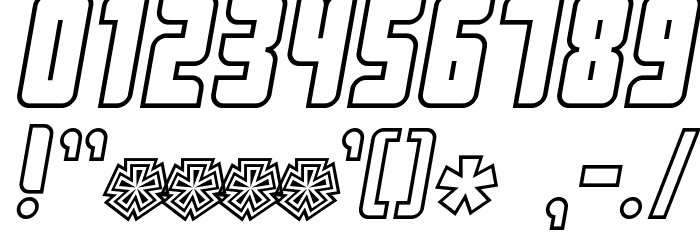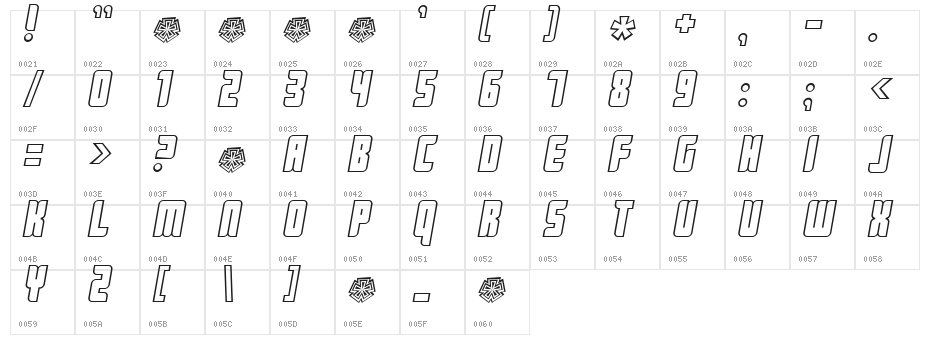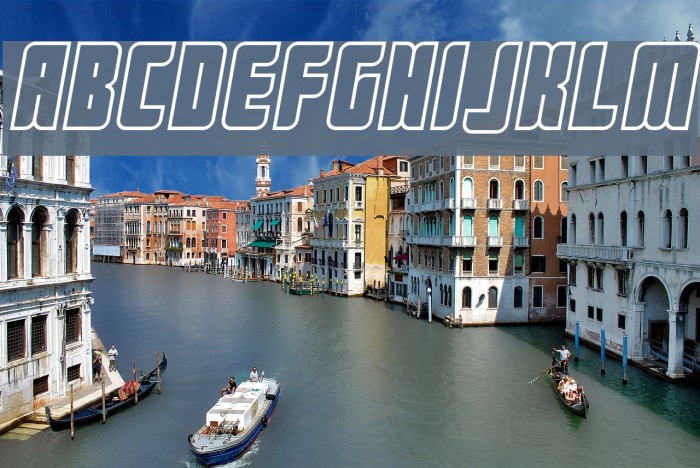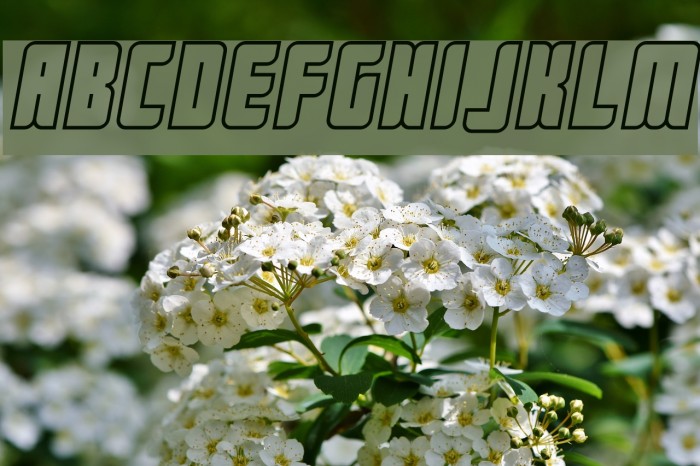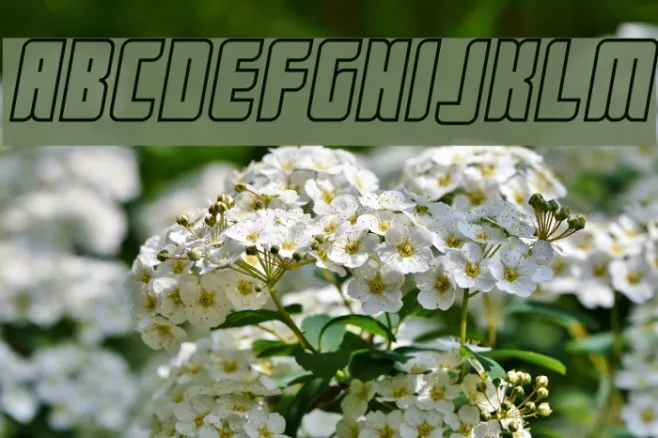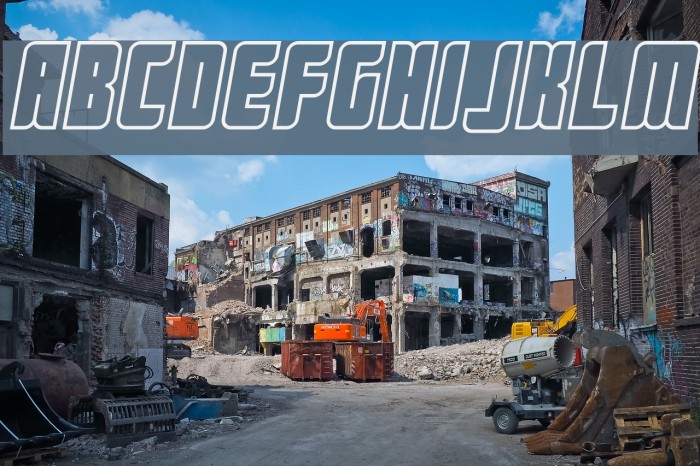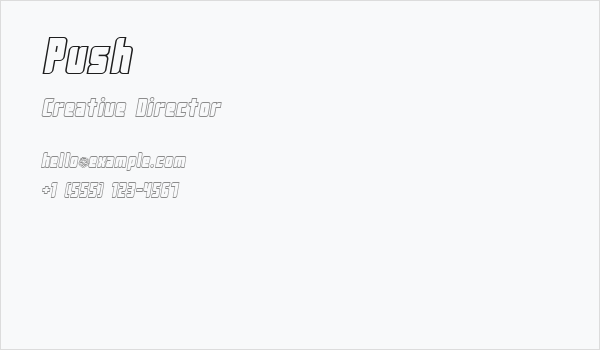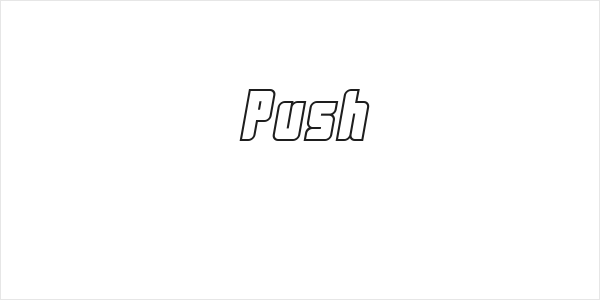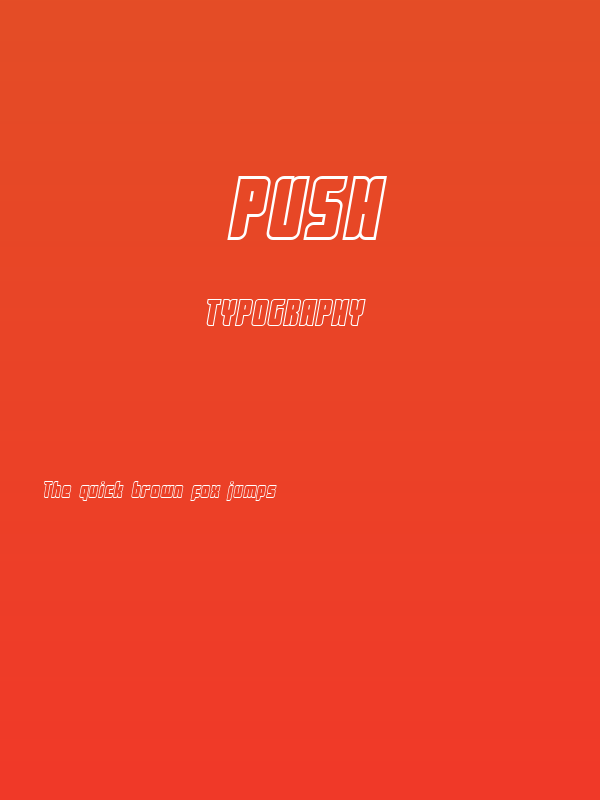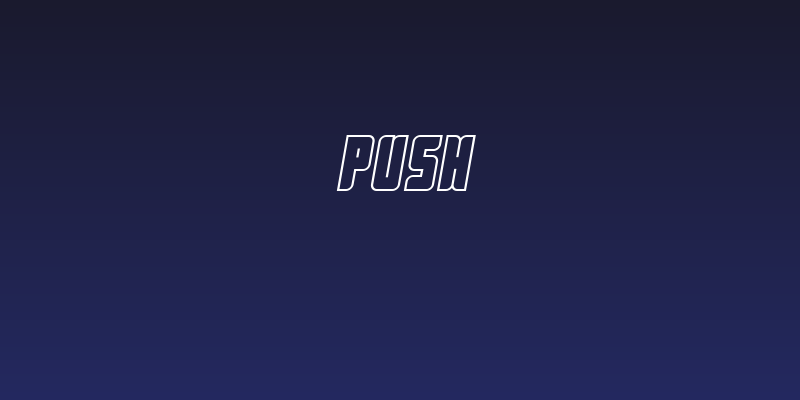
Push Font
Push Description
This font features a bold, outlined style with a modern and futuristic aesthetic. The characters are uppercase and lowercase, with a consistent geometric structure that gives them a strong presence. The lines are thick and uniform, creating a sense of stability and boldness. The numbers and special characters follow the same design principles, ensuring a cohesive look across all glyphs. The font's style is reminiscent of digital or technological themes, making it suitable for projects that require a contemporary and impactful typeface.
Proposed ProjectsIdeal for technology-themed designs, video game titles, futuristic branding, and digital media.